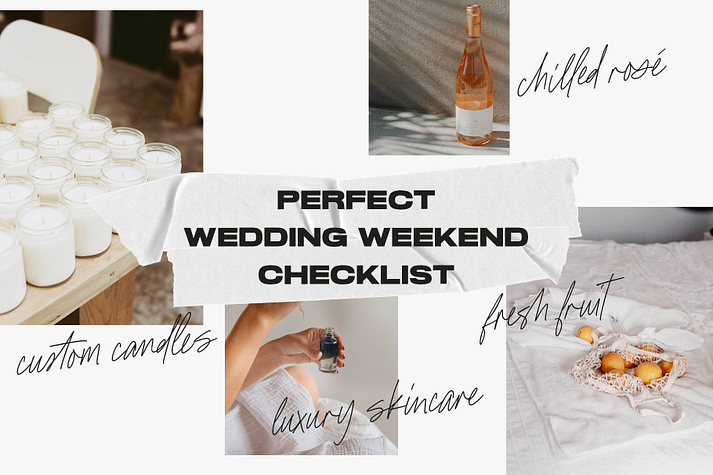
Avanti Script
Avanti Script is a font family. This typeface has two styles and was published by Jen Wagner Co.
Avanti is a beautiful, casual script adds a custom and organic feel to any design in seconds!
With 122 ligatures, plus alternates for each letter, you can create text that looks totally handwritten rather than like a font.
Simply swap the occasional letter for its alternate (using the glyphs or special characters panel), and turn on your ligatures. :)
• Uppercase A-Z, lowercase a-z, numbers, punctuation
• Alternates for each letter so it looks more like custom writing
• 122 ligatures for a totally handwritten look
• Central & Eastern European language characters